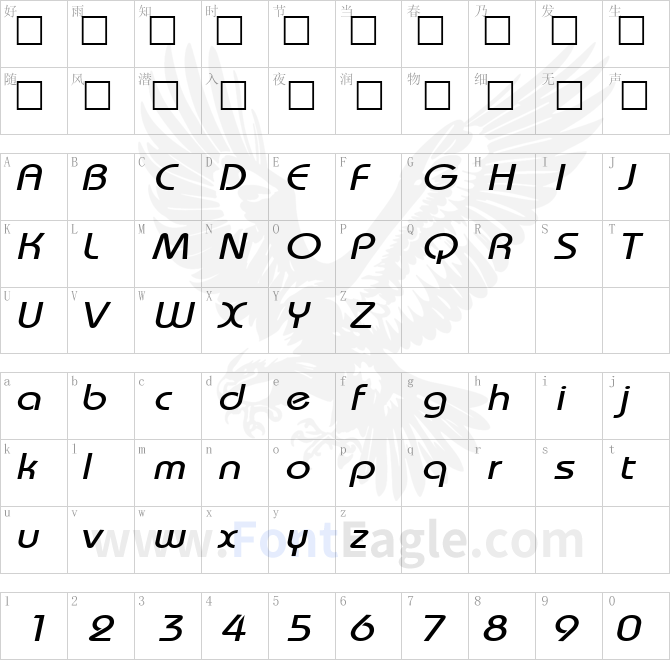
Bimini-Extended-Italic is a great font, widely used in graphic design, single-page menu design, poster design and other fields, and is deeply loved by designers.Bimini-Extended-Italic download.